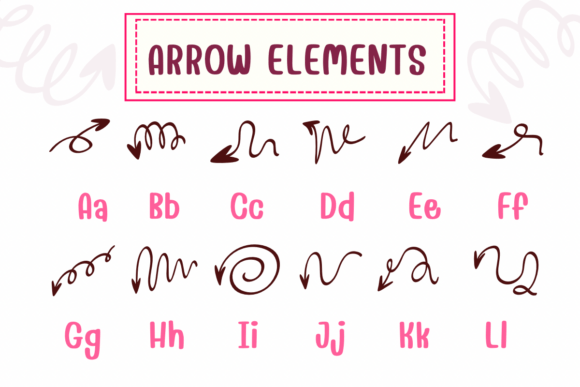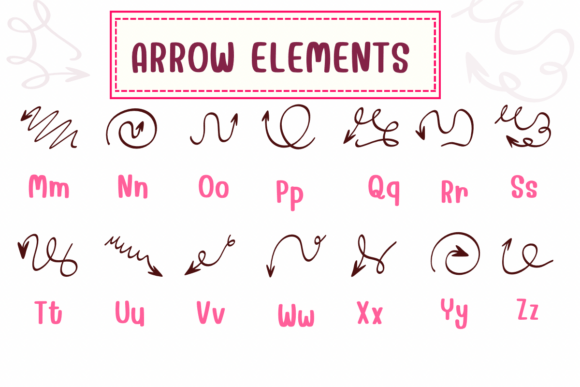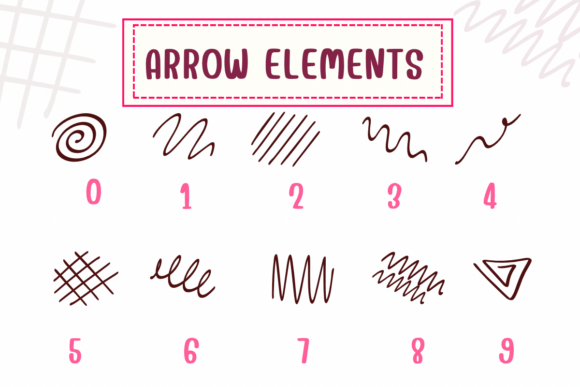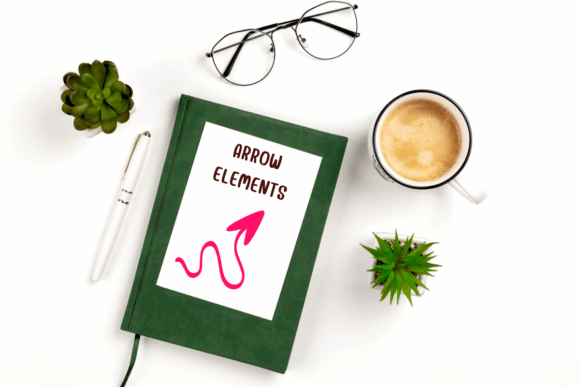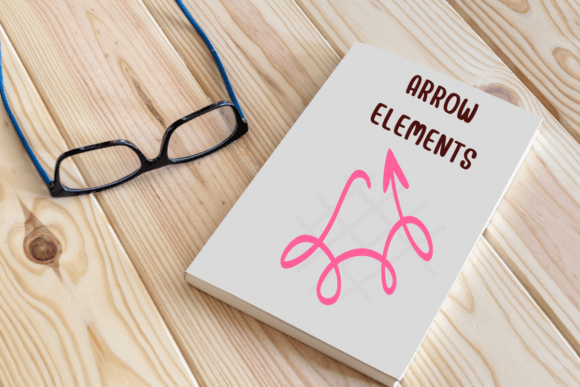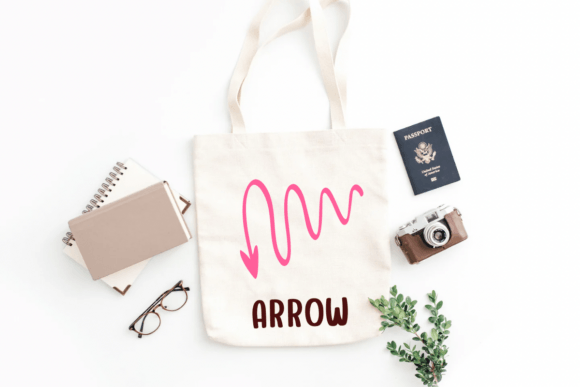
Introduction to Arrow Elements Font
Arrow Elements is a dingbat font that features a variety of curly arrows in different styles.
It’s perfect for adding decorative, swirling arrow designs to your projects .
Key Features of Arrow Elements Font